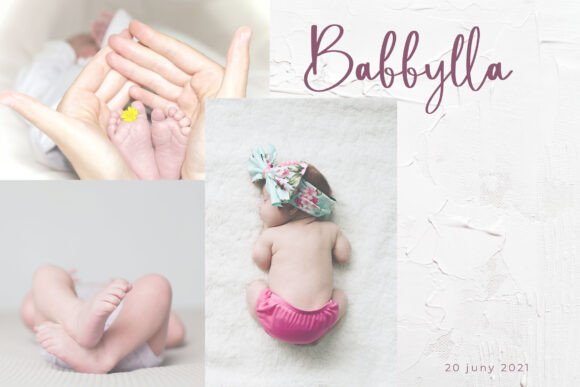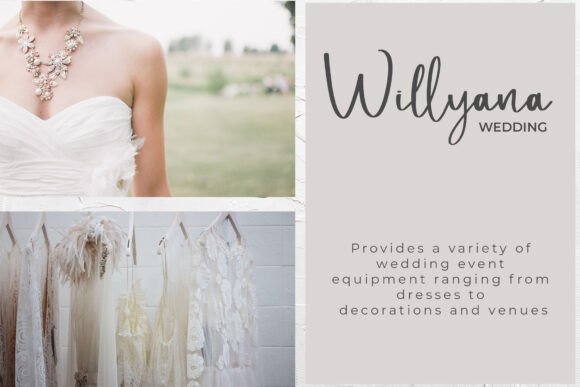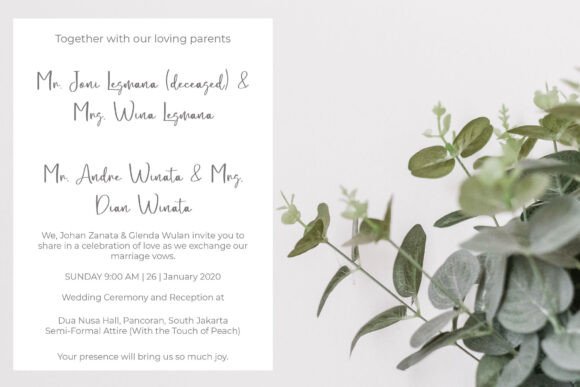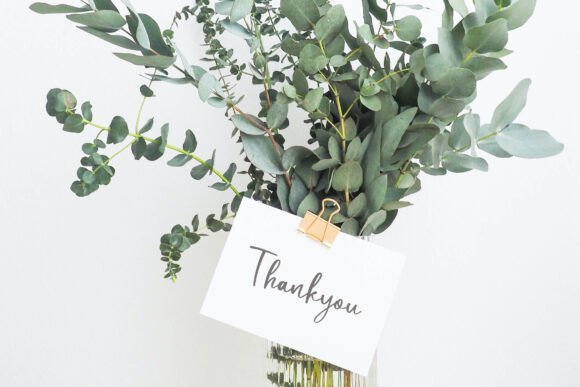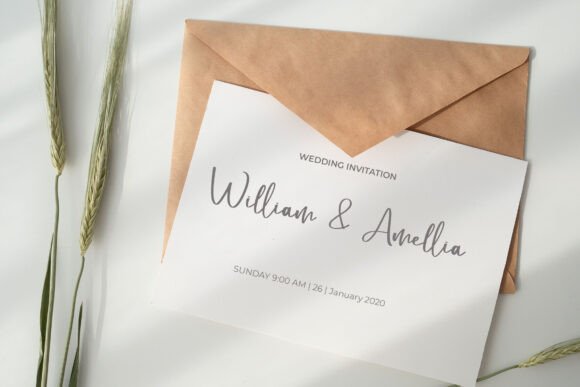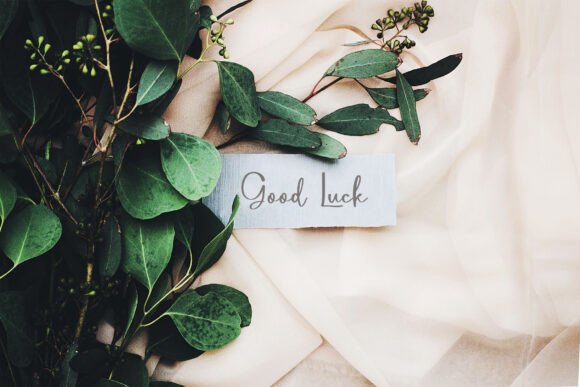
Introducing Allea Mikou Font: Elevate Your Designs with Elegance and Personality
In the world of typography, a well-crafted font can make all the difference in transforming your designs from ordinary to extraordinary. If you’re on the hunt for a unique and stylish script font that adds a touch of elegance and personality to your projects, look no further than Allea Mikou. This stunning handbrush-style script font is designed to bring a creative, eye-catching flair to your designs, making it perfect for logos, invitations, branding projects, and more.
The Unique Charm of Allea Mikou
Allea Mikou is not just another script font; it’s a meticulously crafted typeface that boasts a distinctive handbrush style. Each character is uniquely designed, exuding a sense of elegance and sophistication that can instantly elevate the visual appeal of your designs. The font’s handcrafted feel gives it a personal touch, making it stand out in a sea of digital content.
Key Features of Allea Mikou
- Handbrush Style: The font’s handbrush style gives it a unique, organic feel that is both elegant and eye-catching.
- Unique Characters: Each character in Allea Mikou is carefully crafted to ensure that your designs stand out with personality and flair.
- Elegant and Versatile: Whether you’re working on a logo, invitation, or branding project, Allea Mikou brings a level of sophistication and versatility that’s hard to match.
- Creative and Eye-Catching: With Allea Mikou, you can add a creative touch to your designs, making them more engaging and memorable.
Allea Mikou’s versatility makes it an excellent choice for a wide range of design projects. Here are a few ways you can use this stunning script font:
- Logo Design: Create a memorable brand logo that stands out with Allea Mikou’s unique and elegant style.
- Invitations: Add a touch of sophistication and personality to your invitations, making them truly special.
- Branding Projects: Elevate your brand’s visual identity with a font that exudes elegance and creativity.
- Stationery and Packaging: Bring a cohesive and stylish look to your stationery and packaging designs.
Why Choose Allea Mikou?
In a market flooded with generic fonts, Allea Mikou stands out for its unique character and elegance. Here are a few reasons why designers and crafters are falling in love with this font:
- Unique Style: Allea Mikou offers a fresh and distinctive style that can set your designs apart.
- Ease of Use: Designed with user-friendliness in mind, Allea Mikou can be easily integrated into your design projects.
- High Versatility: The font’s versatility means it can be used across various design projects, from digital to print.
Tips for Using Allea Mikou Effectively
To get the most out of Allea Mikou, consider the following tips:
- Pair with Complementary Fonts: Combine Allea Mikou with simpler fonts to create a balanced and visually appealing design.
- Experiment with Colors: Don’t be afraid to experiment with different colors to find the perfect match for your design.
- Play with Sizes: Utilize varying font sizes to create hierarchy and emphasis in your designs.
| Font Name | Allea Mikou Font |
Allea Mikou is more than just a font; it’s a design statement. With its stunning handbrush style and uniquely crafted characters, it brings an unparalleled level of elegance and personality to your designs. Whether you’re a professional designer or a crafting enthusiast, Allea Mikou is a valuable addition to your typographic arsenal. Elevate your designs and make them truly unforgettable with Allea Mikou.